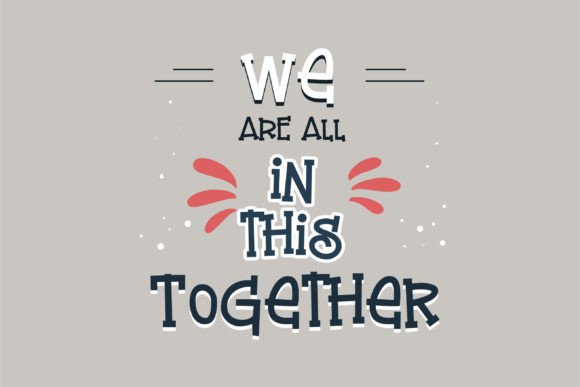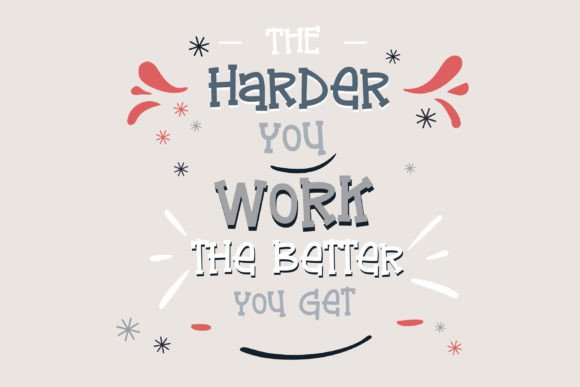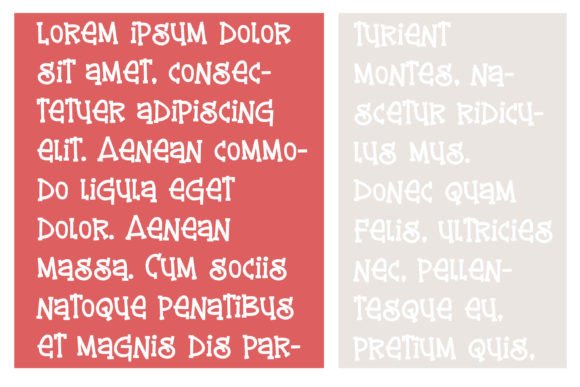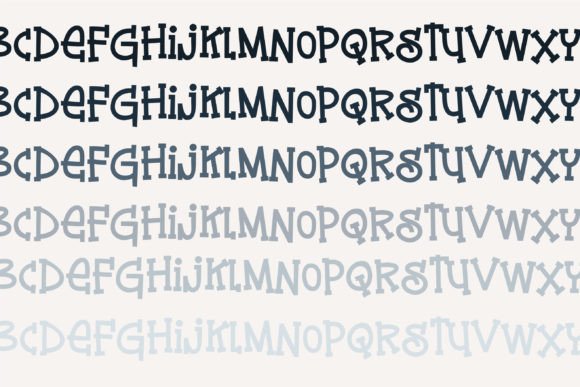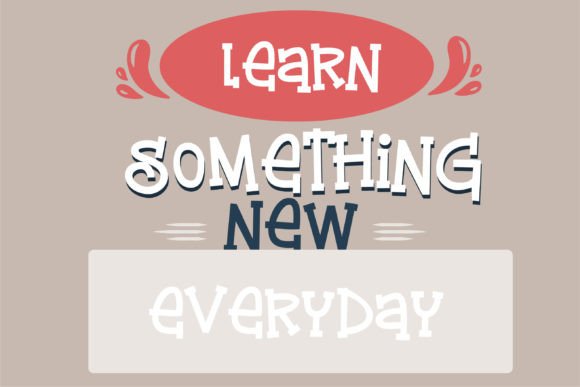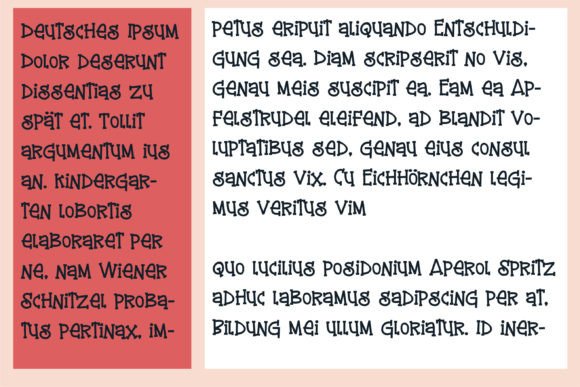
Introduction to Pipster Font
This hand-crafted, whimsical serif is toggled with a bit of bounce in the baseline.
It will beautifully complement modern items created by artistic minds .
Pipster Font offers exceptional quality and versatility, making it a valuable addition to your design toolkit. Whether you’re creating for personal projects or commercial use, Pipster Font delivers professional results.